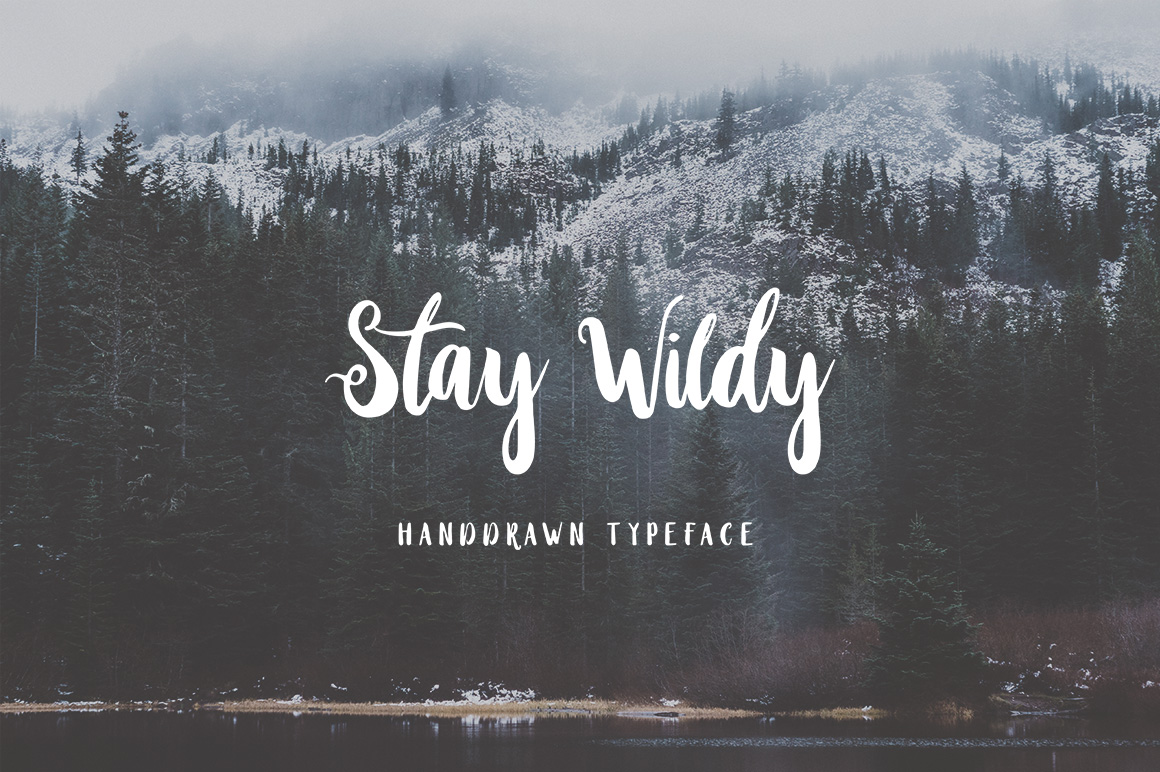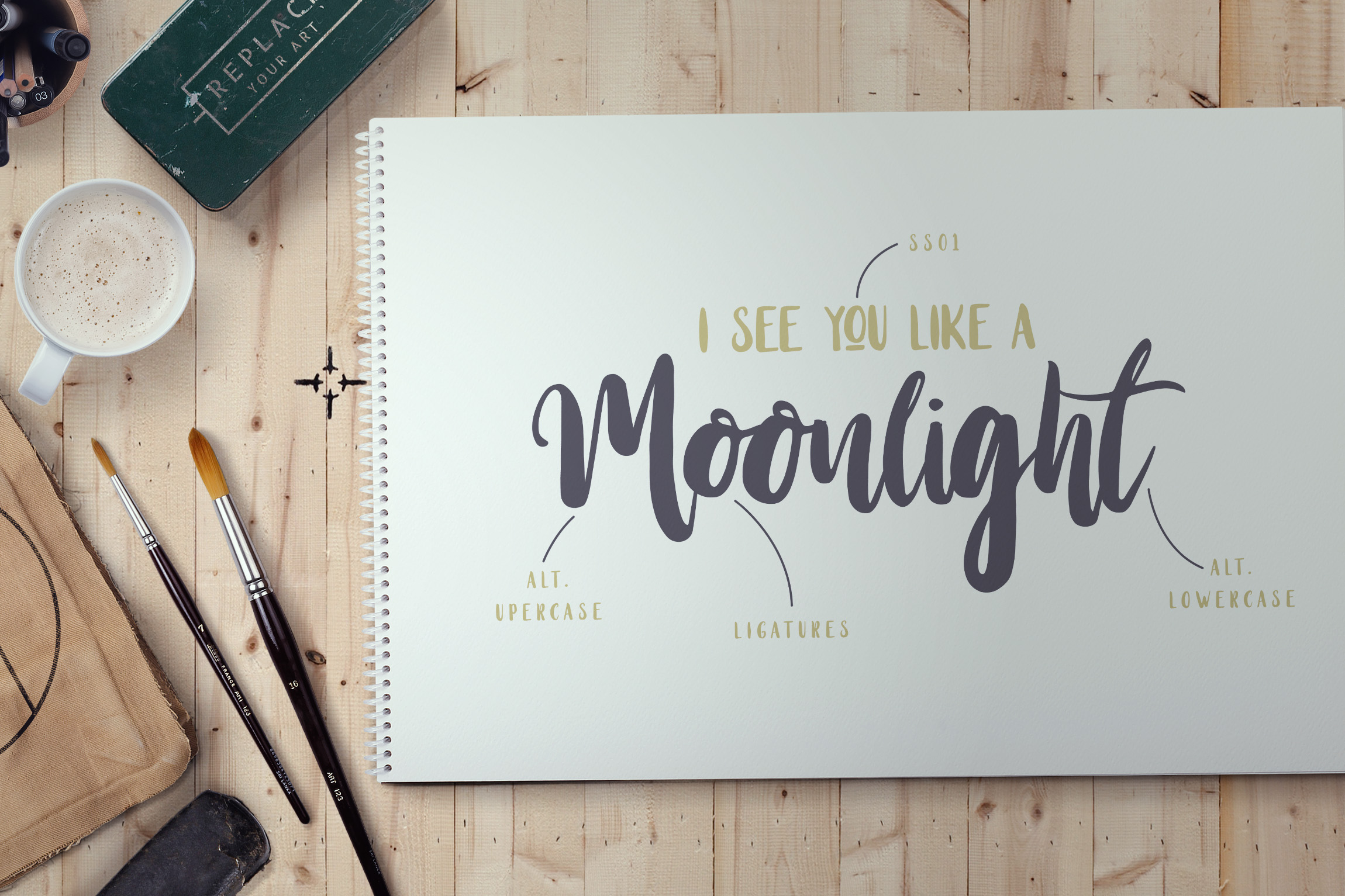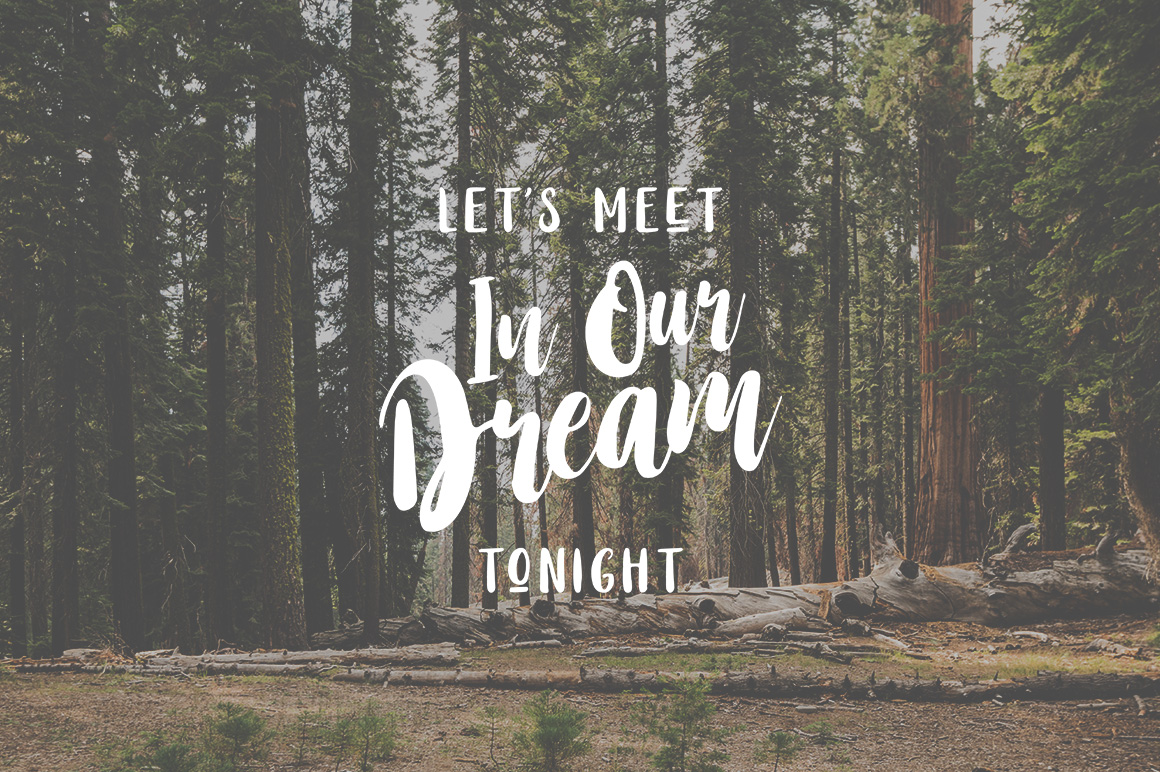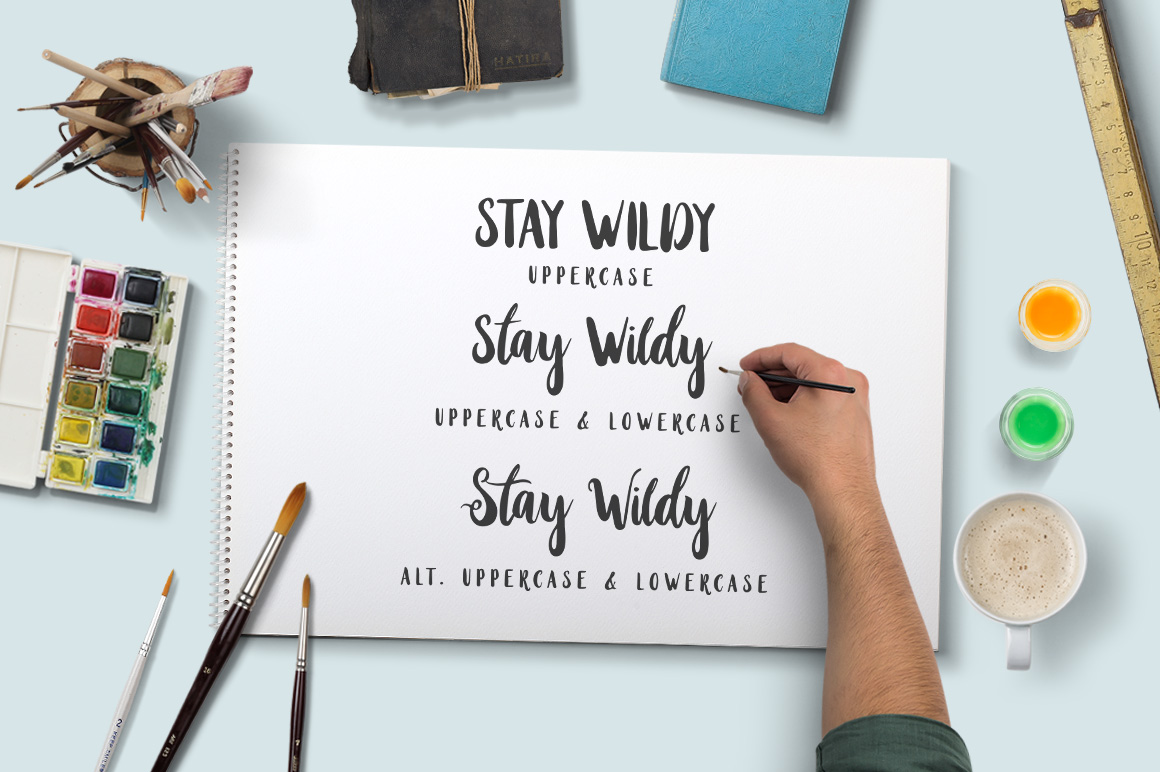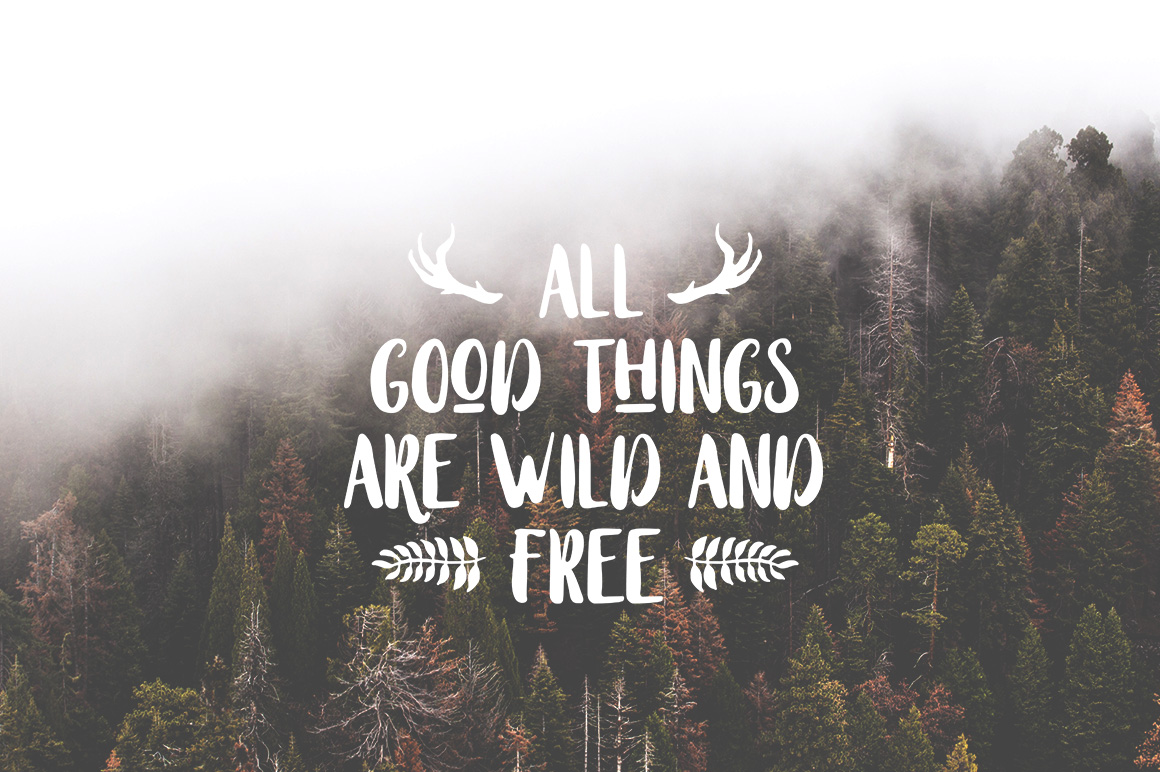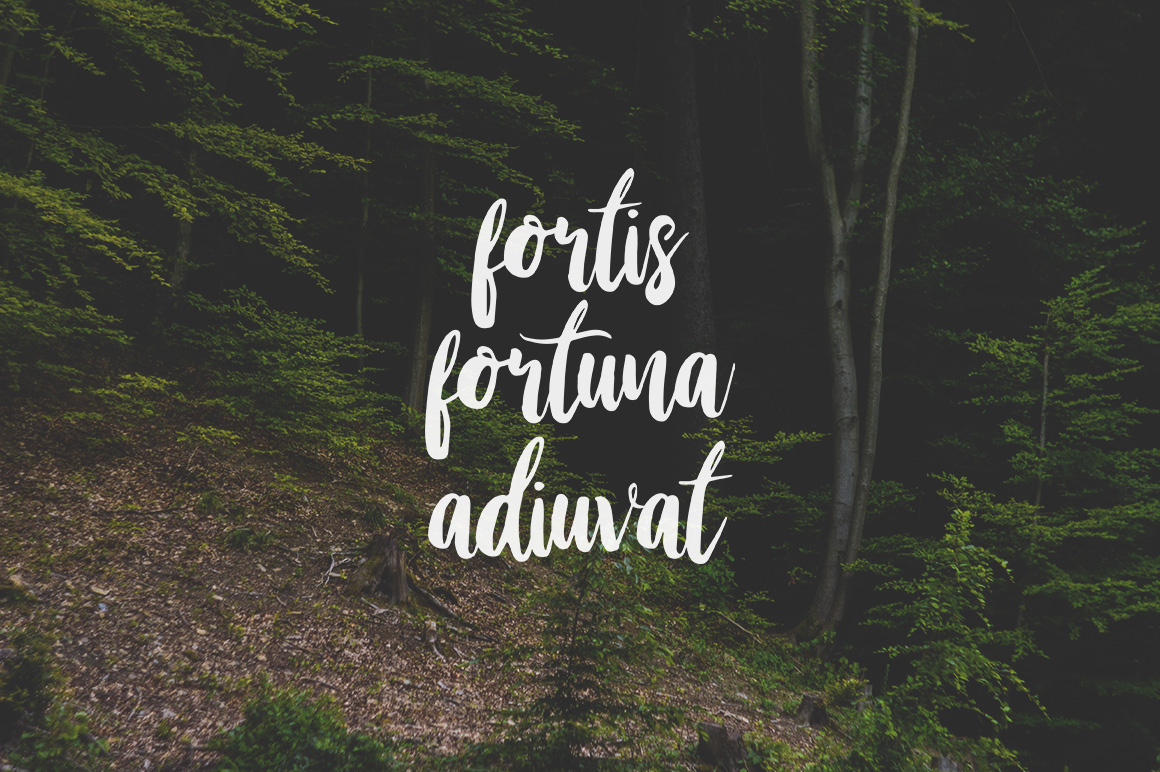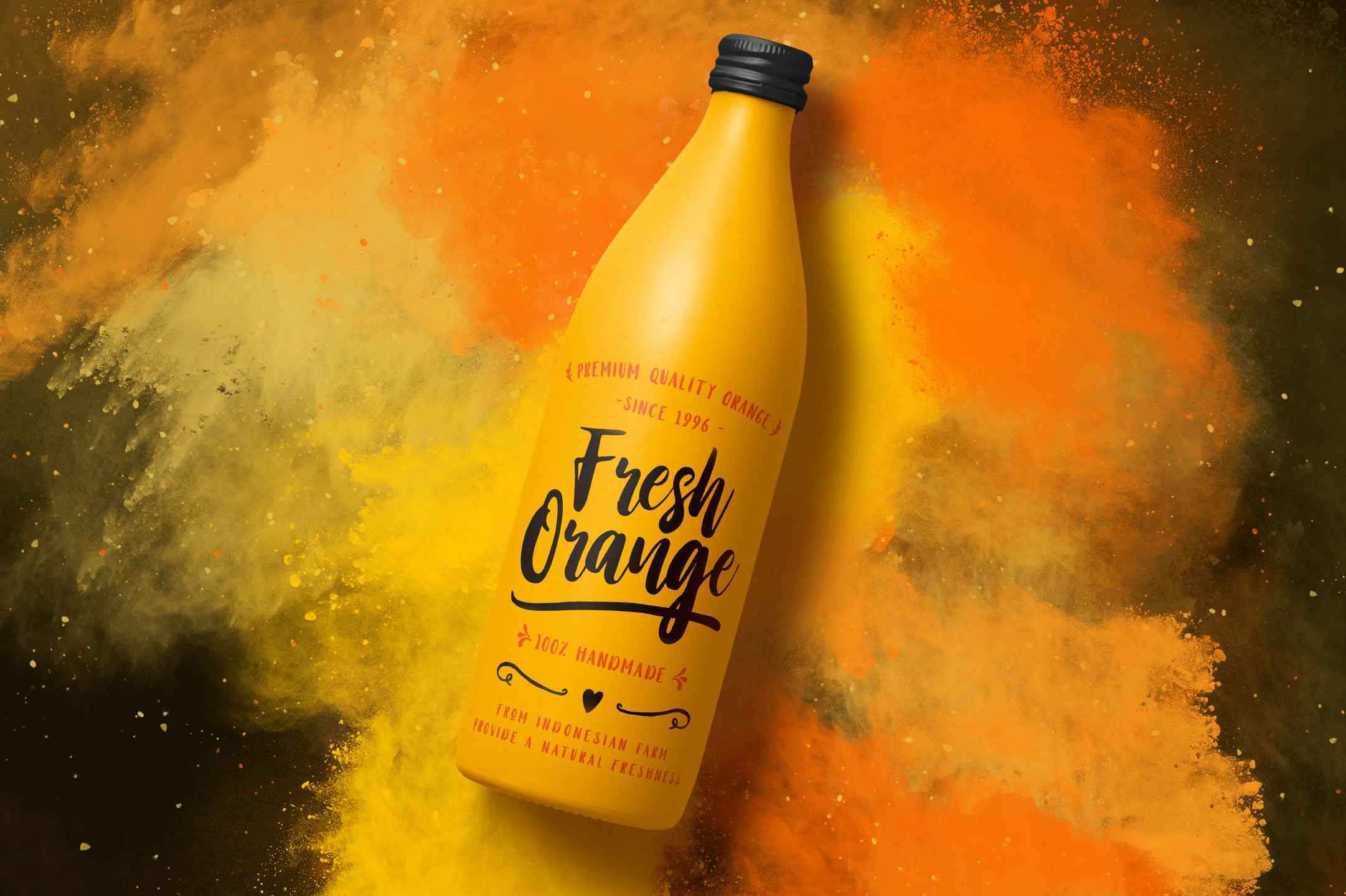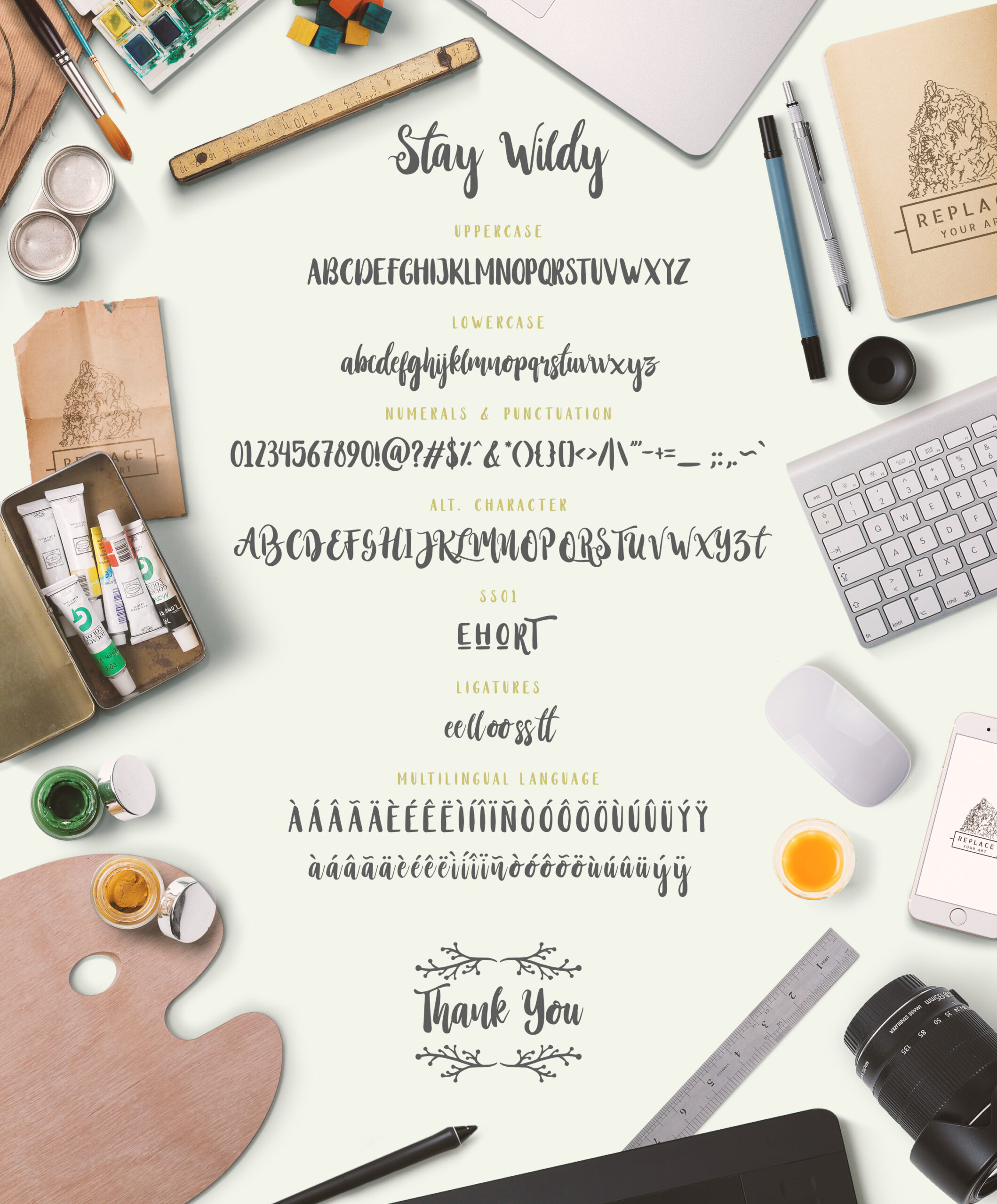
About Stay Wildy Font
“Stay Wildy is my first script font, with a very handwritten character inspired by modern calligraphy styles.” This handcrafted script is a perfect example of fresh calligraphy and can be used to amply a wide range of projects.